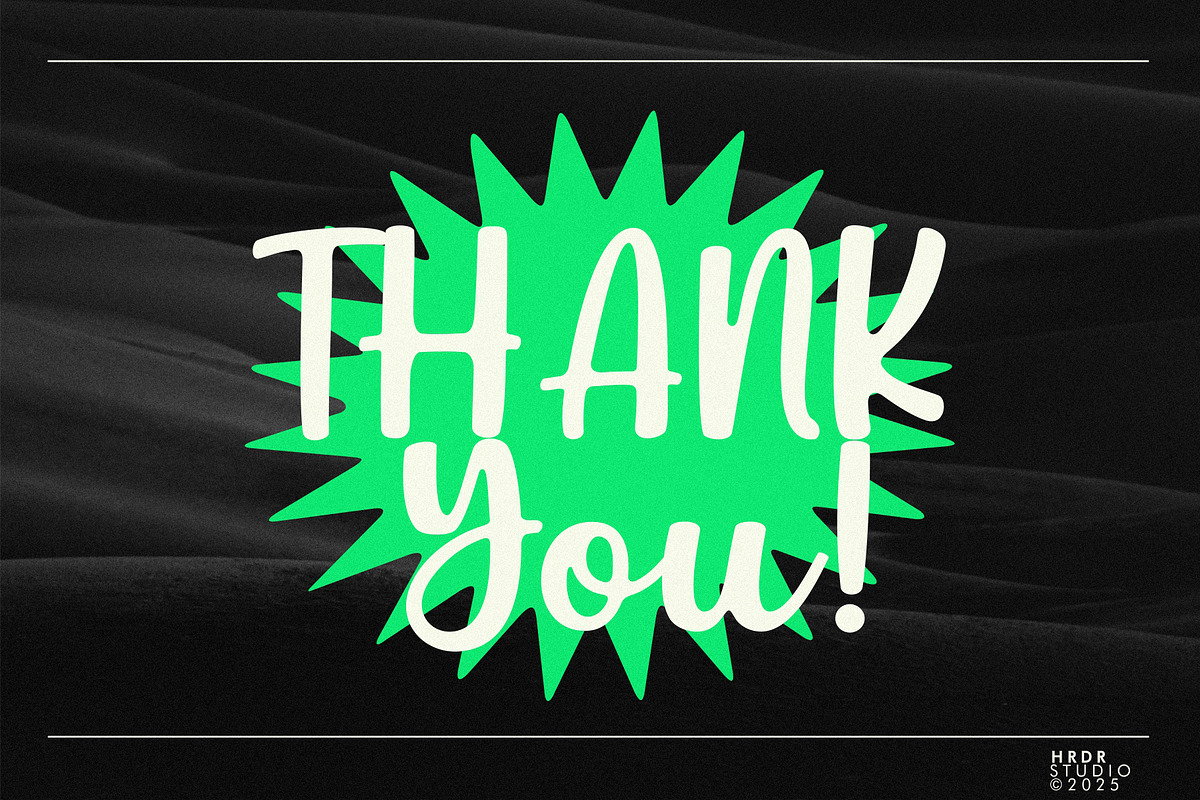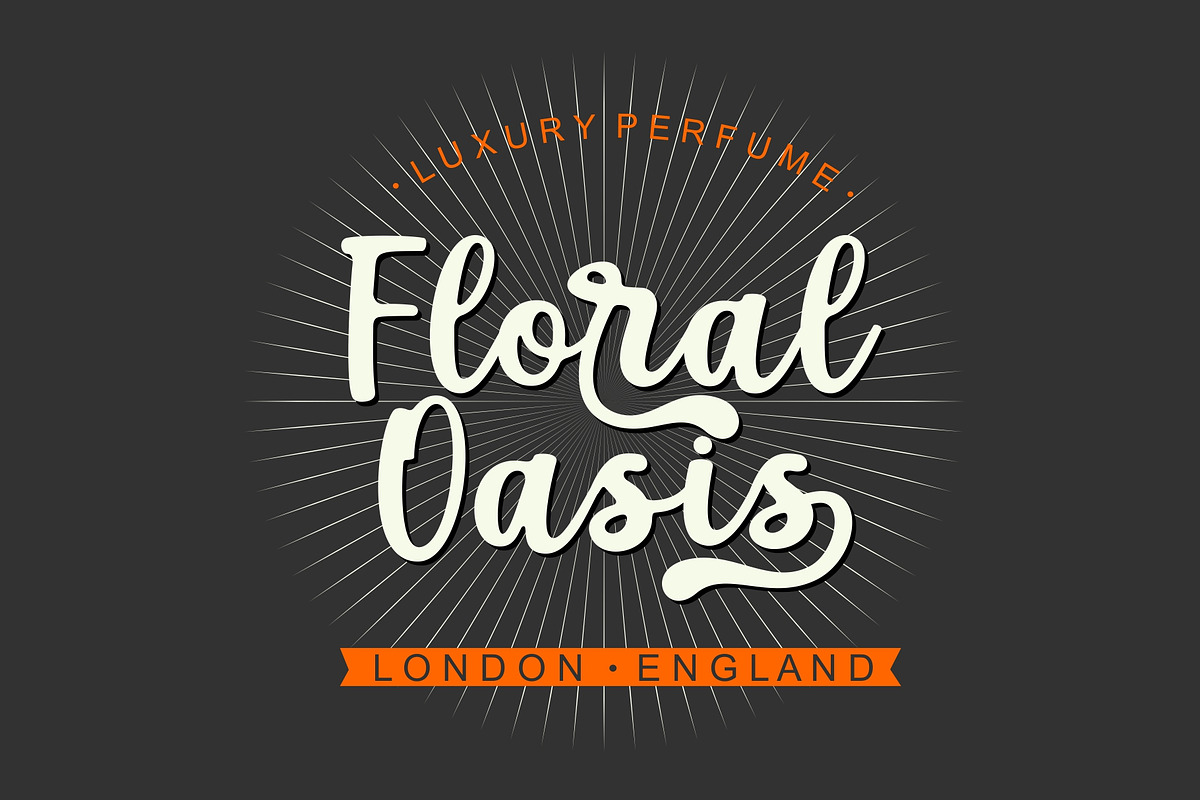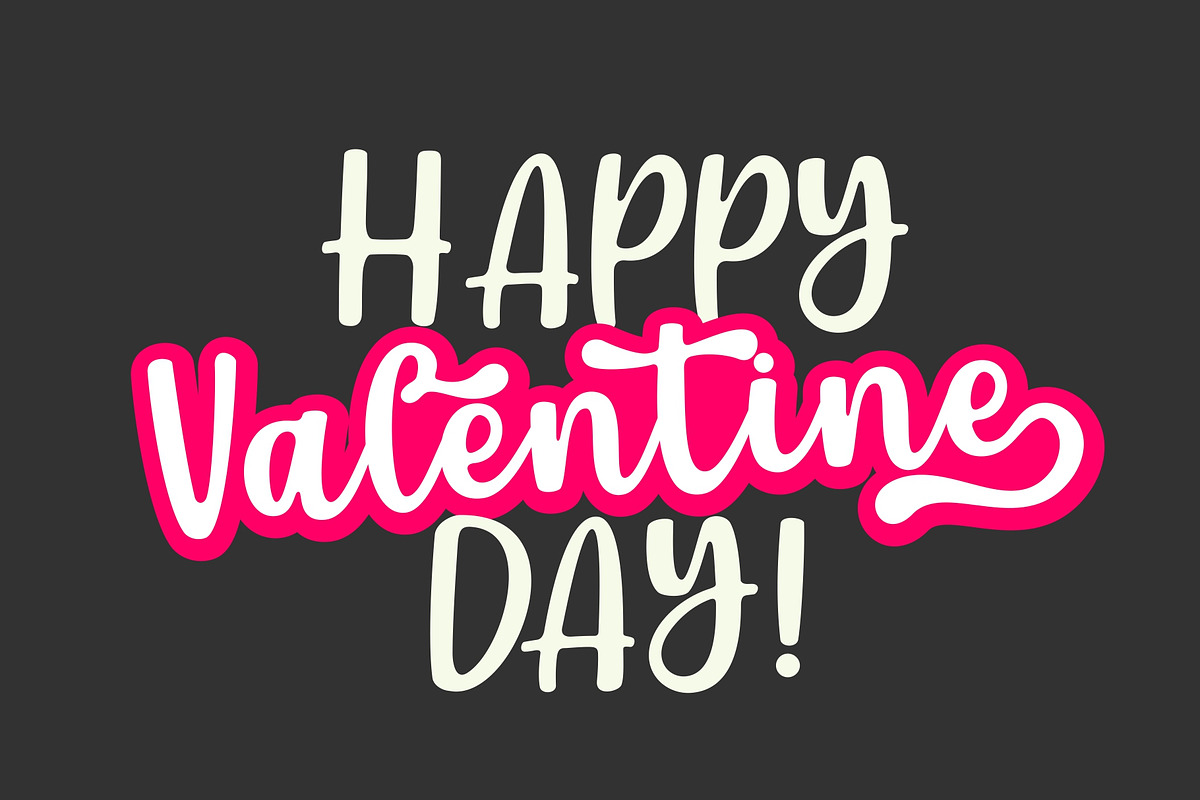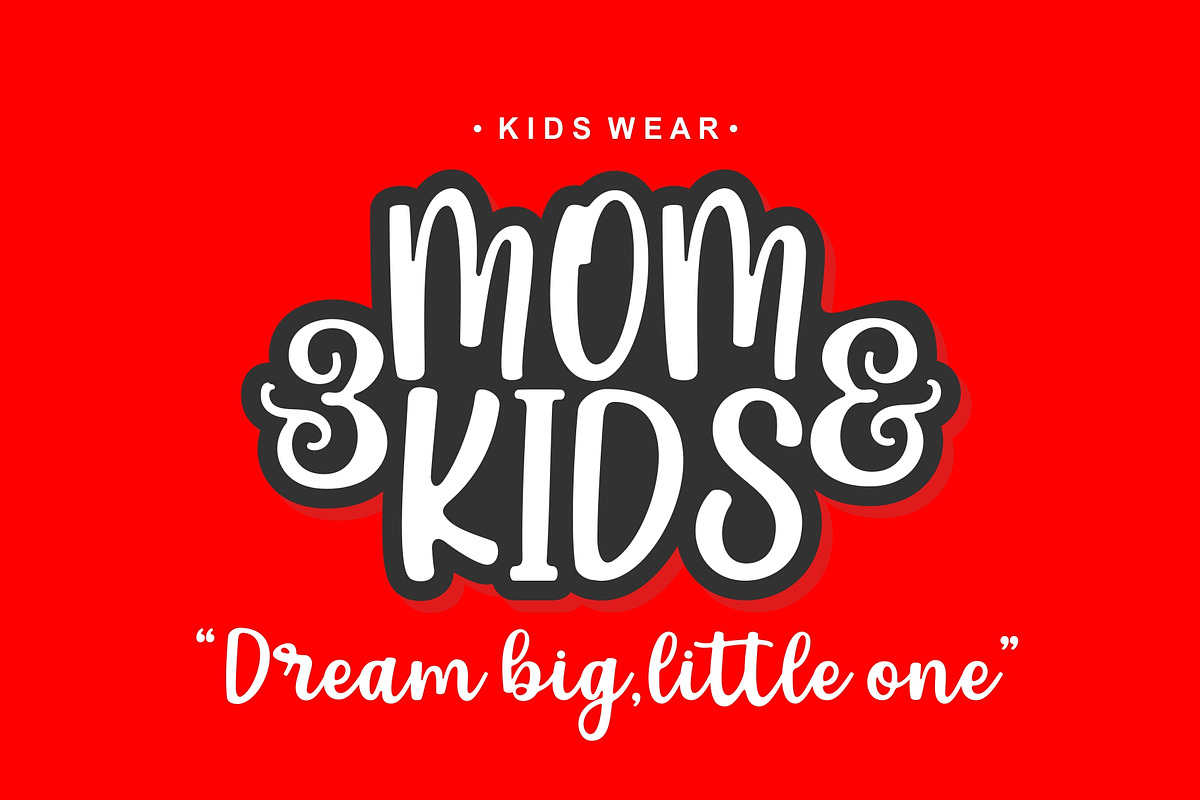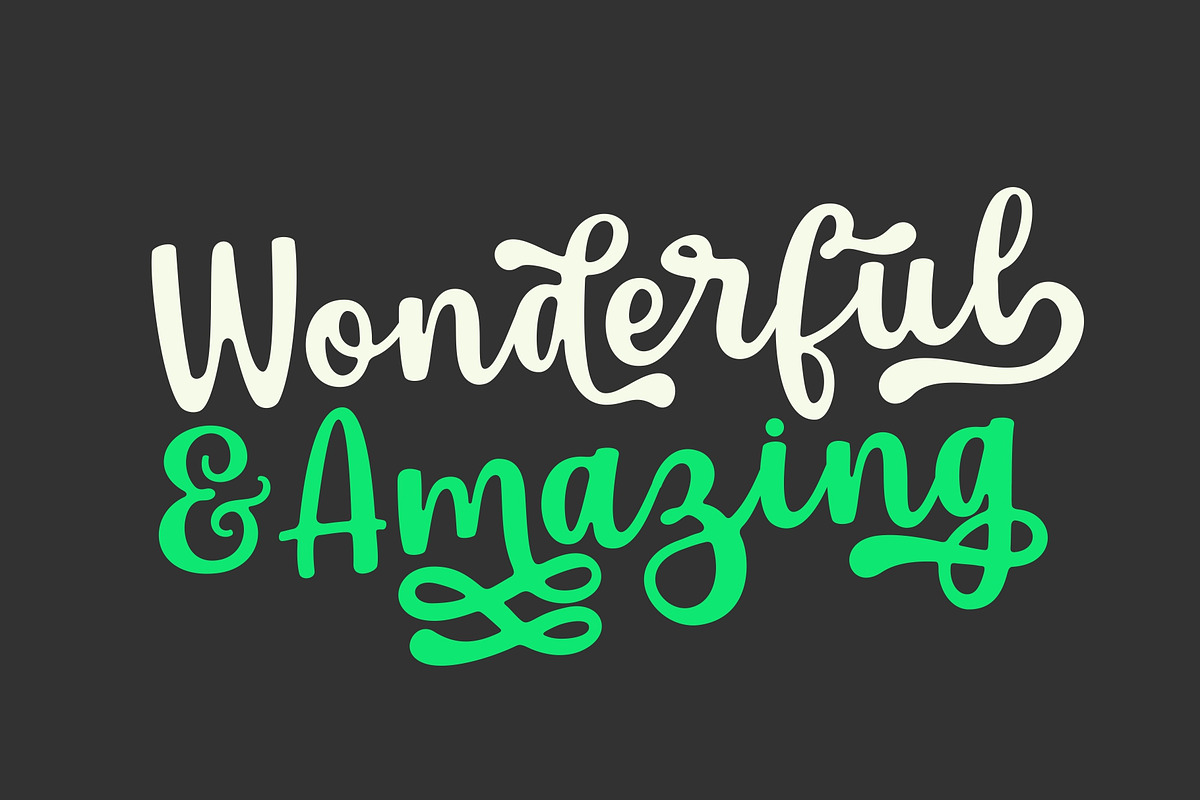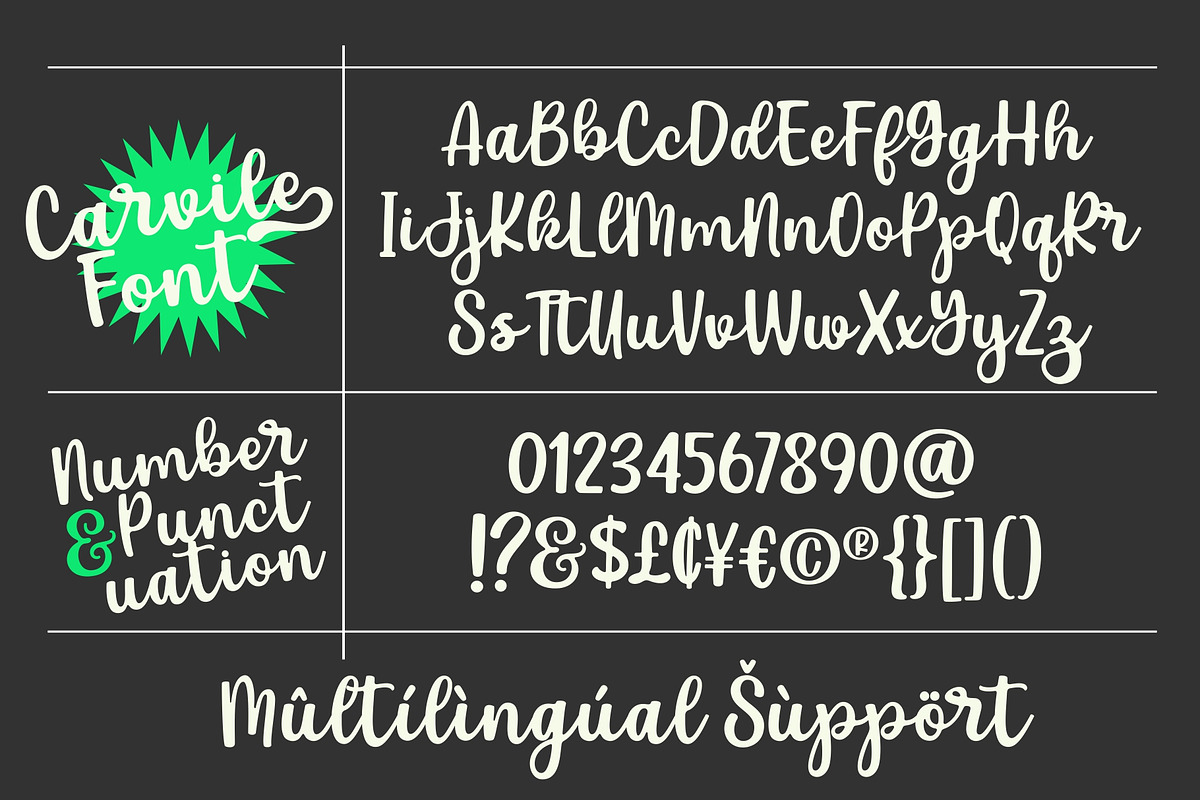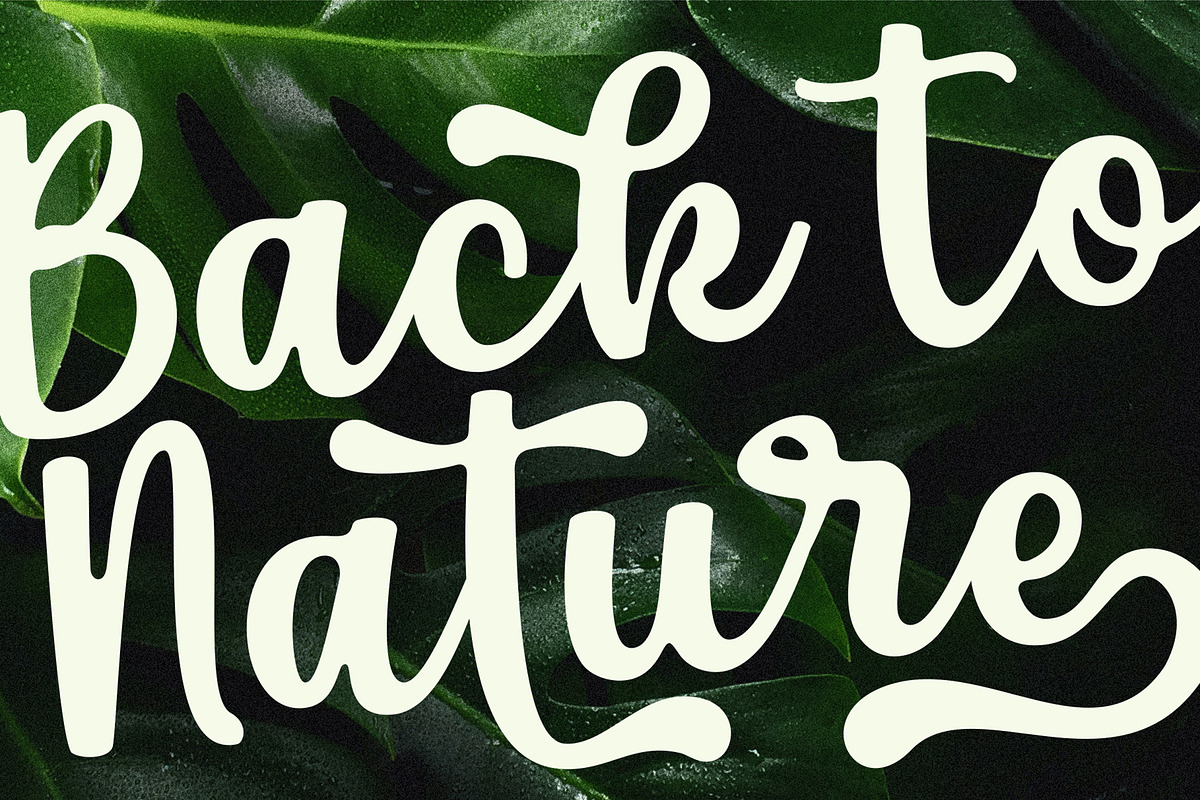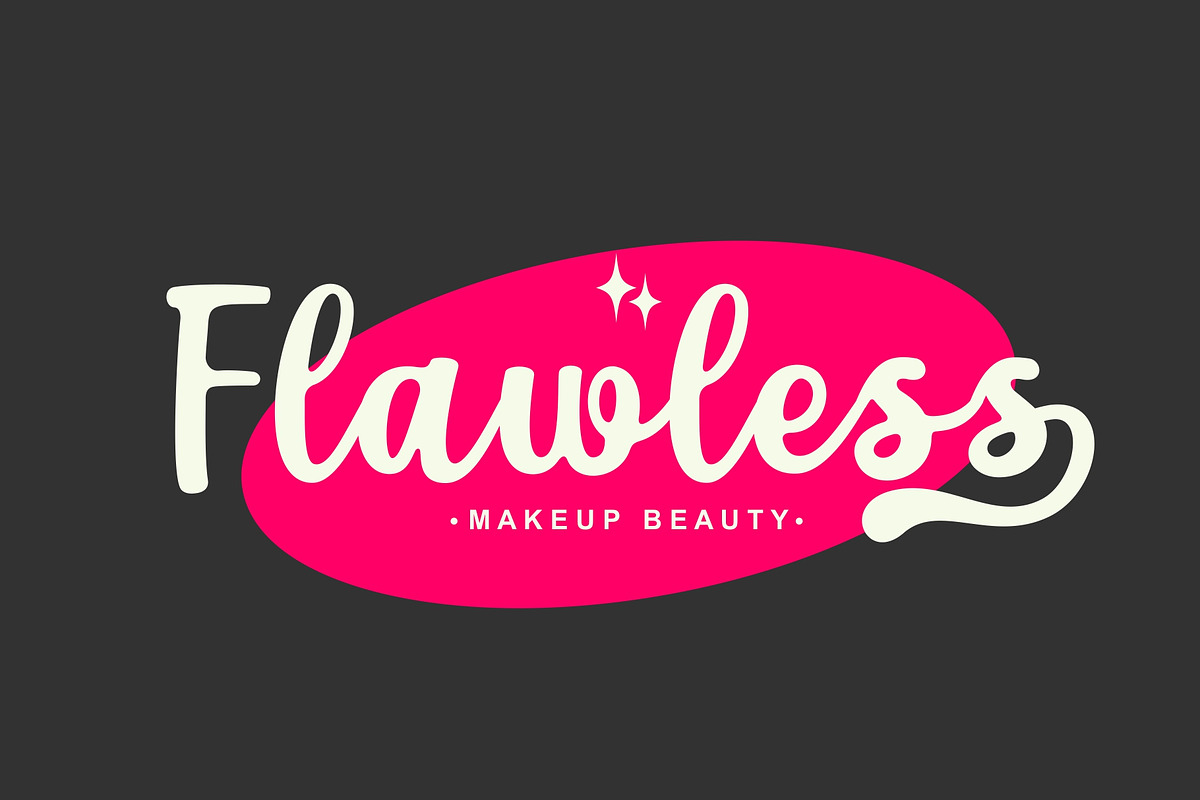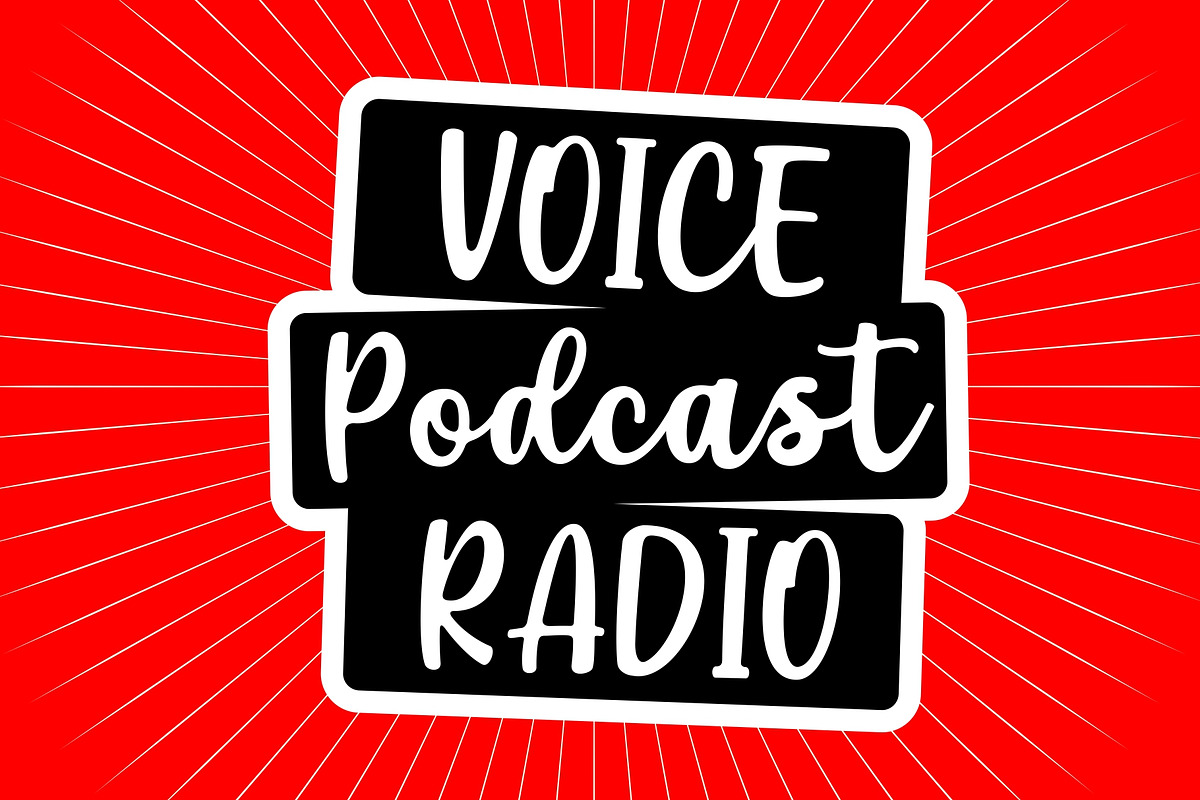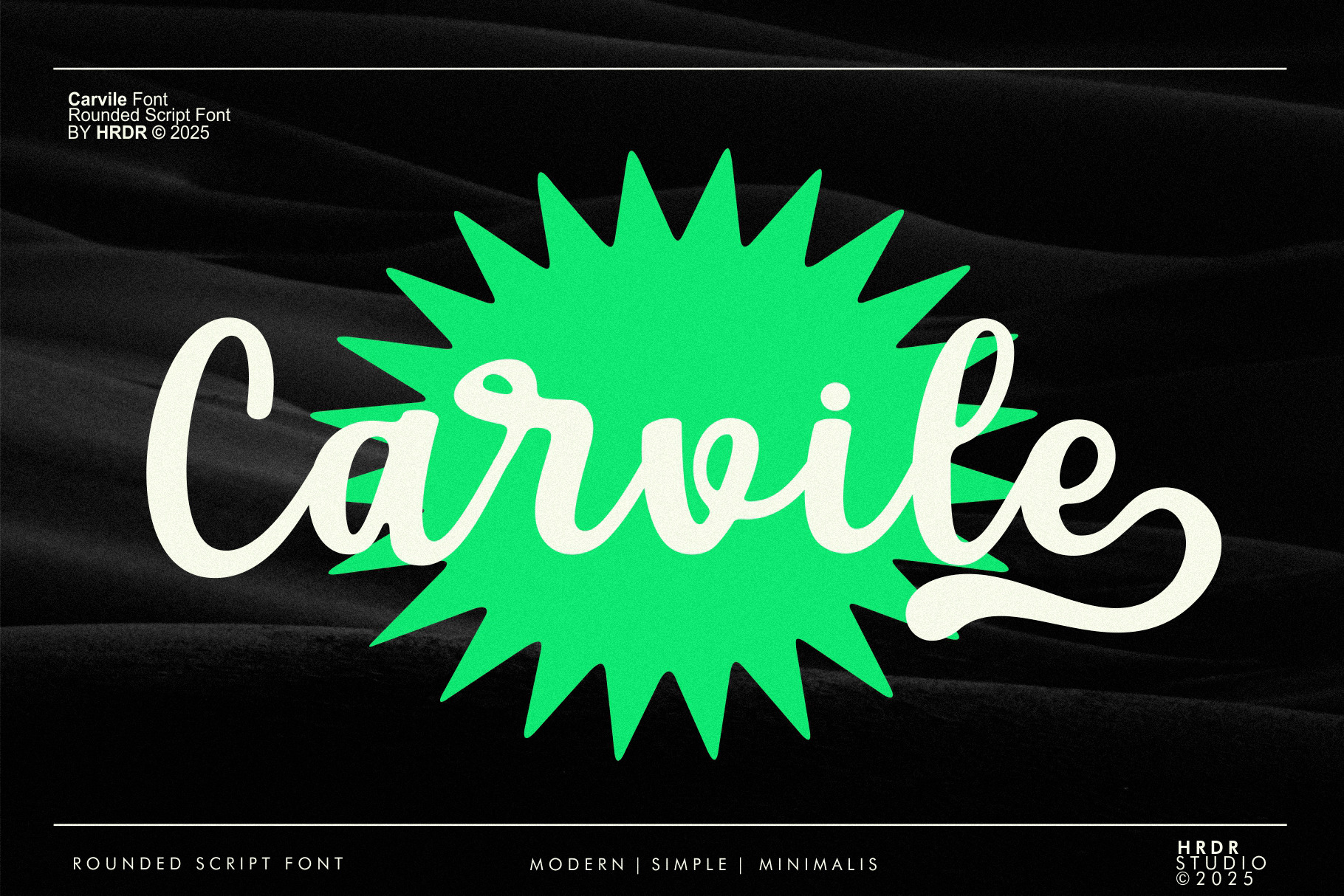
Carvile - Rounded Calligraphy Font
Carvile is a modern and rounded Calligraphy script font. It's perfect for branding, wedding invitations, photography, Neon Sign, bloggers, logos, greeting cards, Logo, Quotes and more.
- numeric & Multilingual support
- Stylistic Alternates with (Ss01, Ss02, Ss03, Ss04, Ss05 and Ligatures)